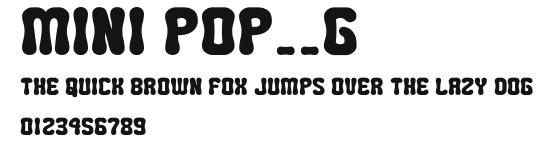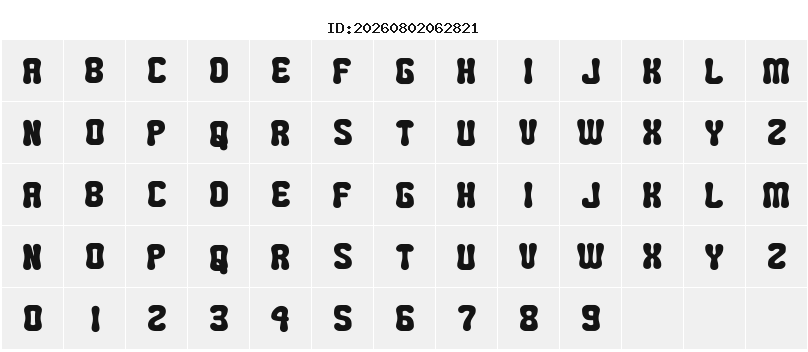
• Font Name: MINI POP__G
• Font Style: Gomarice Fnot
• Font ID: MINI POP__G
• Full Font Name: MINI POP__G
• Version: Ver.1 Gomarice Font 2010/04/08
• PostScript Name: MINI-POP__G
• Copyright: Goma Shin
About MINI POP__G.ttf
MINI POP__G.ttf is a modern, elegant sans-serif font designed for ultimate readability and visual harmony. Perfect for branding, headlines, web design, and print materials.